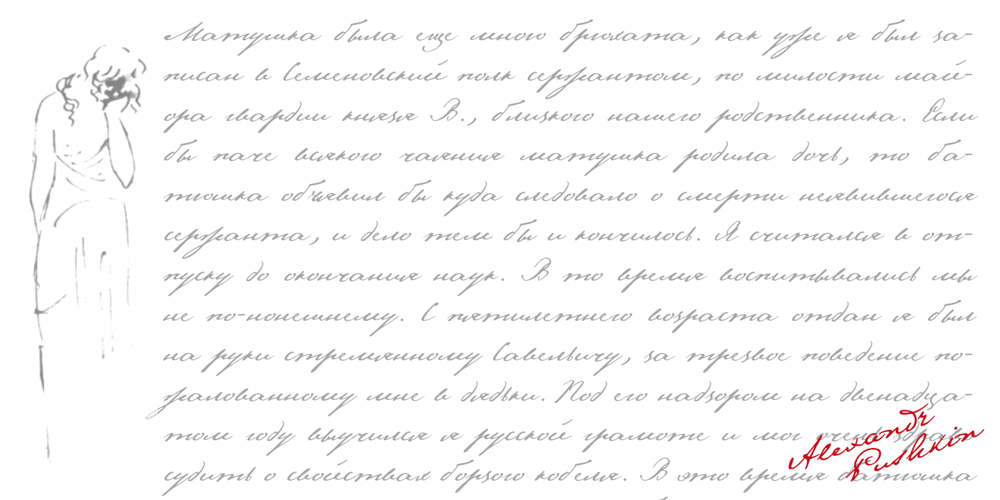
Pushkin
Pushkin font
Pushkin Font Family was designed by Gennady Fridman and published by ParaType. Pushkin contains 7 styles and family package options. The Pushkin type family is based on the autographs of Alexander Pushkin, the eminent Russian poet (1799-1837). There are several variants of Pushkin’s hand. Pushkin Script in 2 styles was based on the manuscripts of 1815 and covers Western and Russian character sets. Pushkin One was developed on the basis of thoroughly written documents. Pushkin Two imitates small but nevertheless rather legible hand. Pushkin Three in 2 weights was created on the basis of the autographs distinguished by sprawling hand. Pushkin One, Two and Three series covers just the basic Cyrillic character set. This set of basic Cyrillic fonts was amended by Pushkin French font that is based on French writings and covers Western character set.Designed for ParaType in 1999-2004 by Gennady Fridman.